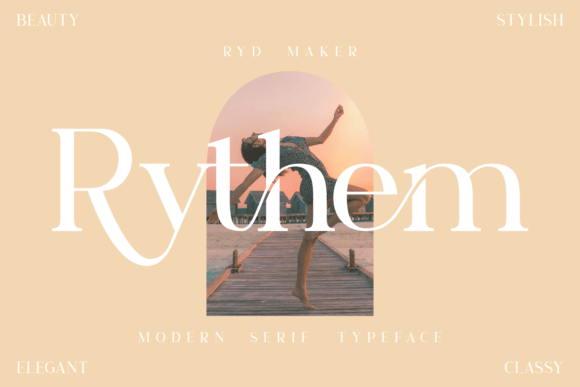
Introducing Rythem Font, a mesmerizing creation by Rydmaker (7NTypes). This sophisticated serif font brings a touch of elegance and charm to any project, making it ideal for those seeking a luxurious and fashionable appeal. Designed with femininity in mind, Rythem Font is perfect for modern and chic designs that demand attention.
Unleash your creativity and let Rythem Font elevate your creations to new heights. With its PUA encoding, accessing all the enchanting glyphs and ligatures is a breeze, allowing you to effortlessly add a unique touch to your designs. Say goodbye to limitations and embrace the endless possibilities Rythem Font offers.
Captivate your audience with the allure of Rythem Font. Its intricate details and graceful curves create a captivating visual experience that evokes emotions and captivates hearts. Whether you're designing a brand logo, a stunning wedding invitation, or a sophisticated magazine layout, Rythem Font is the perfect choice to make a lasting impression.
Indulge in the beauty of Rythem Font and let it transform your projects into works of art. Its versatility allows it to seamlessly blend with various design styles, making it a versatile tool for all your creative needs. From elegant branding to breathtaking editorial layouts, Rythem Font is the secret ingredient that will make your designs stand out from the crowd.
Experience the power of Rythem Font and witness the magic unfold before your eyes. Embrace the world of luxury and sophistication with this font that exudes confidence and allure. Let Rythem Font be the key that unlocks your creativity and helps you leave a lasting impact on your audience.